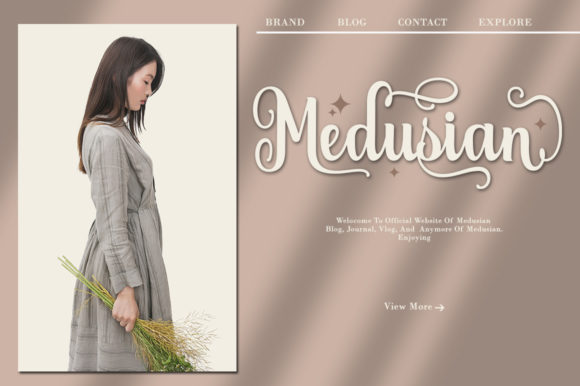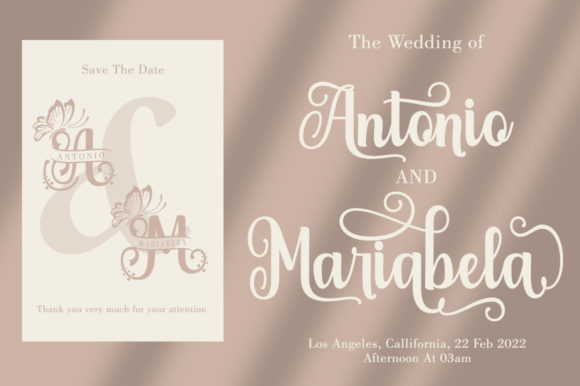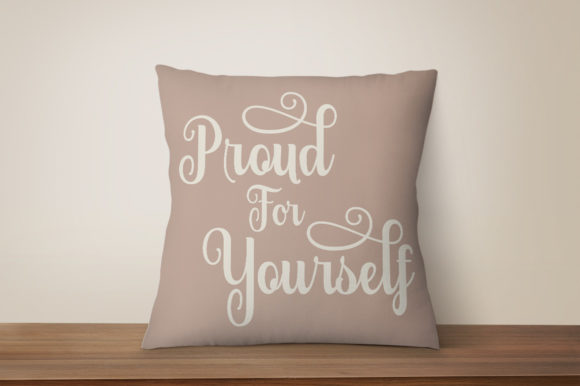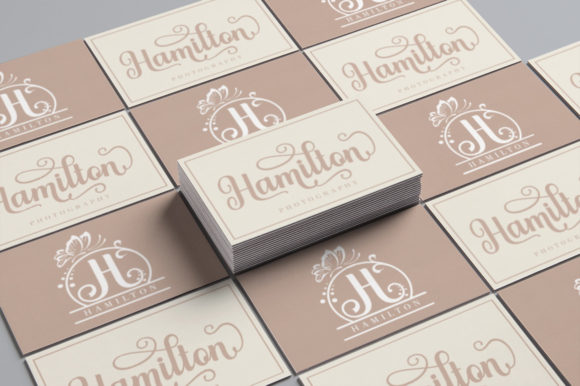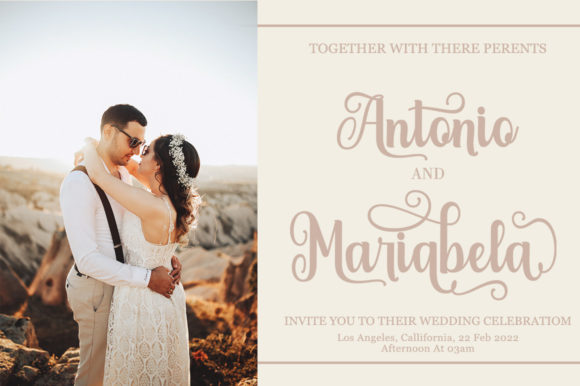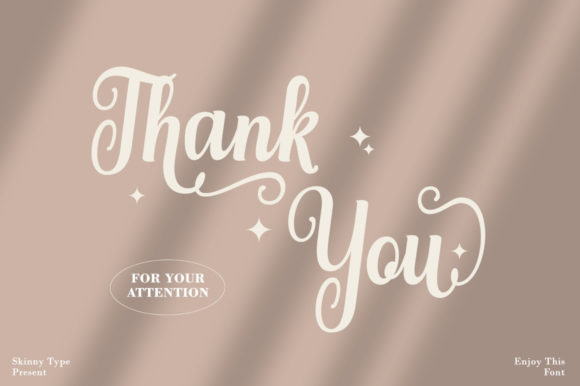
About Glorynesia Font
Glorynesia is an elegant duo font (decorative and script) with a contemporary atmosphere and impeccable form, inspired by timeless classic calligraphy. This font is PUA encoded which means you can access all of the glyphs and swashes with ease!Â